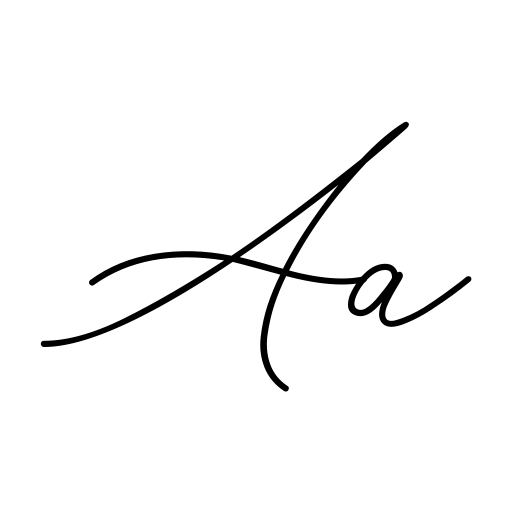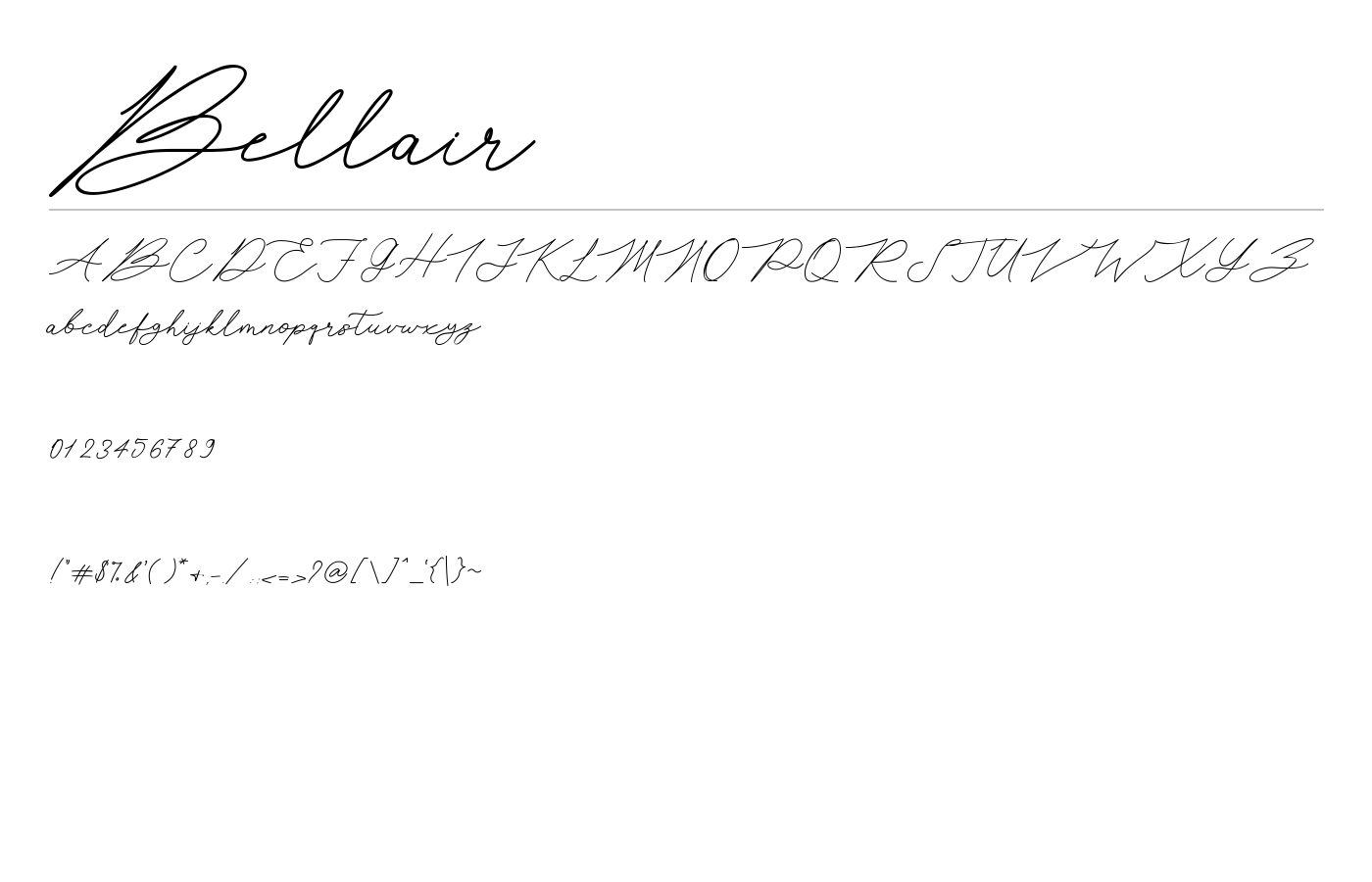
Bellair is an elegant, delicate script font characterized by its thin, flowing strokes and graceful, connected letterforms. Its light weight and refined curves give it a sophisticated, handwritten feel perfect for luxury branding, wedding invitations, and stylish logos. This font adds a touch of romance and finesse, making it ideal for designs that seek to communicate elegance and personal charm.
Bellair Font
About Bellair Font